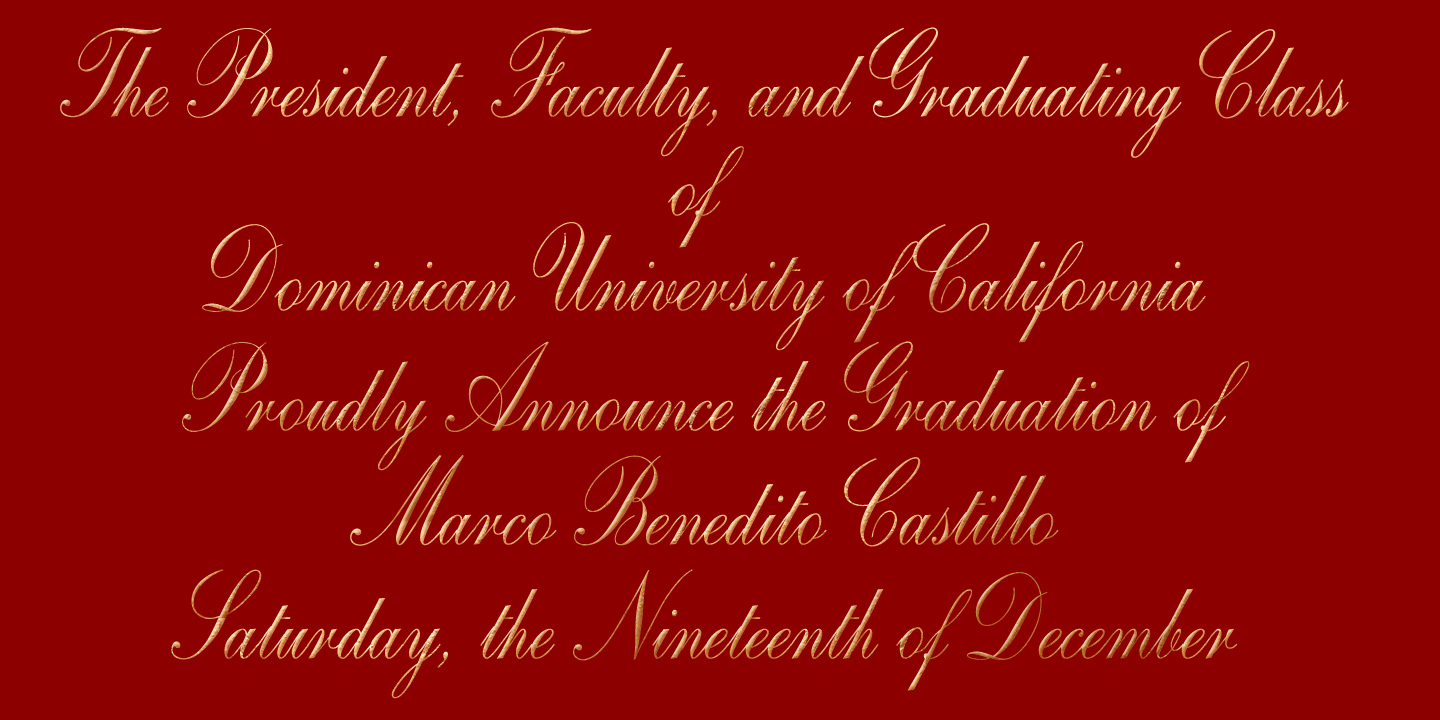
Copperplate Script CT is a script font published by CastleType.
One of the more elegant script fonts available, this design is based on calligraphic handwriting called “Copperplate” because of the copper plates that it was etched into for reproduction. This face is not related to Copperplate [Gothic] by the American type designer, F.W. Goudy. The name Copperplate comes from the fact that writing masters used to hand-write their books and then send them to an engraver who recreated all the subtle details onto copper plates, which where then used to print the handwriting books. This is the style of calligraphy that my father taught me when I was 10 or 11. Beautiful for invitations, wedding announcements, or anything where you want a formal flare.